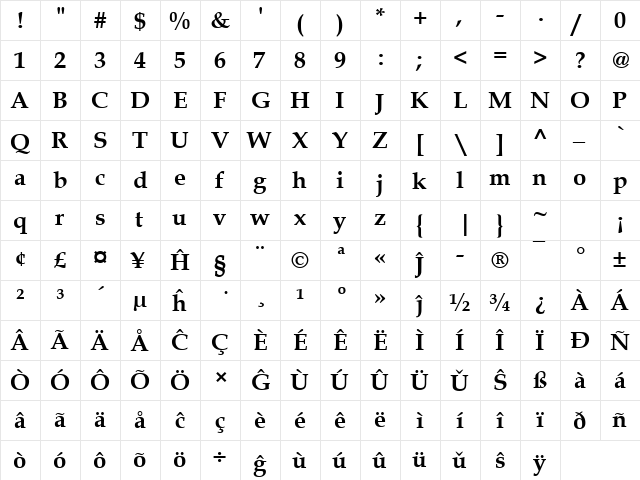
Book Antiqua Eo Bold
Design Context for Book Antiqua Eo Typeface
Book Antiqua Eo offers clean, dependable letterforms without strong stylistic allegiance, making it a practical choice for designers who need flexibility. Its bold stroke weight gives it real presence on the page.
Pro Tip: Pair Book Antiqua Eo with a font of contrasting weight or personality to build a more expressive typographic hierarchy.